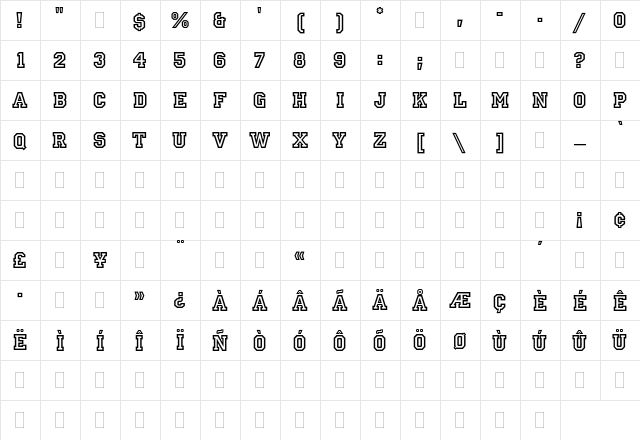
Princetown Plain Font Preview
Princetown Plain
Design Context for Princetown Typeface
Princetown takes a measured approach to typography — its balanced proportions and neutral character make it a reliable workhorse for both digital and print work.